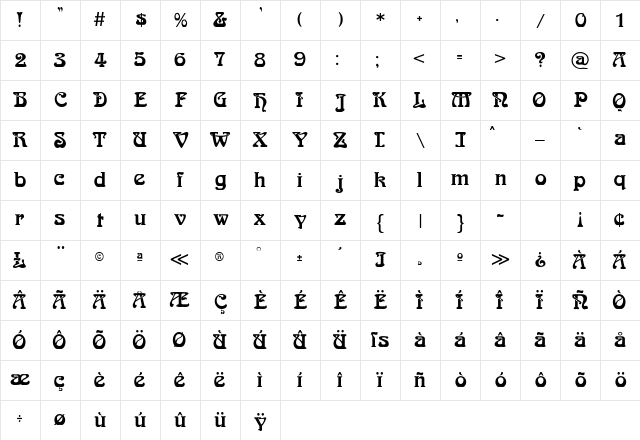
Bocklin Regular
Design Context for Bocklin
Bocklin is a composed and adaptable typeface that performs quietly and consistently across a wide range of design contexts.